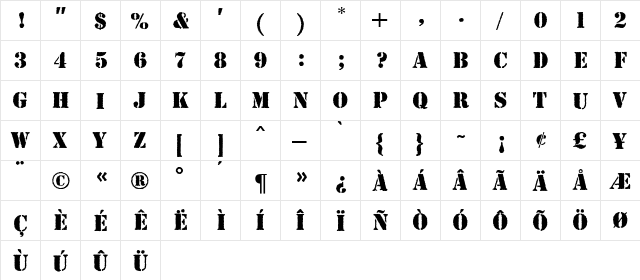
Stencil Antique MN Regular
Design Context for Stencil Antique MN Typeface
Stencil Antique MN has the warm character of retro typography — evoking diners, record sleeves, and the golden age of print advertising.
Perfect for vintage-inspired branding, retro packaging, nostalgia campaigns, and period-accurate editorial design.
Font Pairing: Combine Stencil Antique MN with a simple slab or neutral sans — period-accurate companions reinforce the vintage feel without competing for attention.
Pro Tip: Use Stencil Antique MN for headlines and pull quotes rather than body copy — its personality is best appreciated in short, focused bursts.